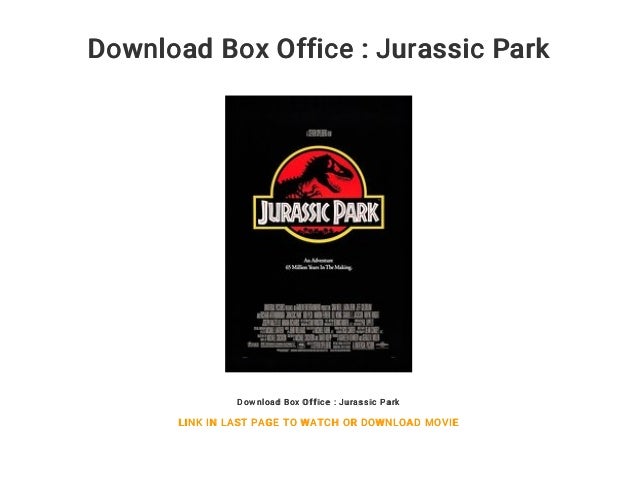
This font resembles the lettering used for the Jurassic Park movie. Jurassic Park font download for Windows or Mac OS This font is available in TrueType or OpenType format. Jurassic Park font By Film Himmel Jens R Ziehn Website wwwfilmhimmelcom 2696 views, 440 downloads Share Share Share Download (zip 257 Kb) Add to favourites Report this font.
Jurassic Park font 298/5 2264 votes, rated based on results identification by Jens R Ziehn (Fonts by Jens R Ziehn wwwfilmhimmelcom) DOWNLOAD FONT See the font with your own custom text SET CUSTOM TEXT WhatFontIs Blog Use The Power Of Fonts To Increase Sales. Jurassic Park font is a fancy, outline font designed by Jens R Ziehn Jurassic Park font is available for free download for noncommercial, personal projects. Download Jurassic Park font at FontsMarketcom, the largest collection of amazing freely available fonts for Windows and Mac.
Font download Select below your desired version of this font Jurassic Park The data will be supplied in a Zip archive This will be a single zip file containing selected font file(s) To start downloading please confirm your request Can't read the code?. Jurassic Park Font Features This can be a fancy, stylish, trend serif typeface that looks like a gucci font gets encouraged by means of a letters printable widespread journal logo Designers workforce working on it took a significant deal with the font paring and contrast matching for the period of the based font family Jurassic the typeface. Nov 12, 19 The Jurassic Park font contains 68 beautifully designed characters ️ Customize your own preview on FFontsnet to make sure it`s the right one for your designs.
This font resembles the lettering used for the Jurassic Park movie. Free download Jurassic Park fonts, free Jurassic Park fonts, BD Jurassic, BD Jurassic Black, BradstoneParker Script Limited Version, Echinos Park Script Toggle navigation fonts100Com Font Styles Alien (112) Arabic (1605) Basic (1147) Cartoon (1756). Click to find the best 5 free fonts in the Jurassic Park style Every font is free to download!.
Jurassic Park Font, Download Jurassic Park ttf truetype or zip Free Free Windows Fonts for Donwload. Jurassic Park is a 1993 American science fiction adventure film directed by Steven Spielberg and produced by Kathleen Kennedy and Gerald R Molen It is the first installment in the Jurassic Park franchise, and is based on the 1990 novel of the same name by Michael Crichton and a screenplay written by Crichton and David Koepp The film is set on the fictional island of Isla Nublar, located off. Jurassic Park by Jens R Ziehn A font based on the title logo from the movie Jurassic Park 3 and Jurassic World CLICK HERE TO DOWNLOAD!.
Jurassic Park Font is presented by Filmfonts This awesome font only is allowed for personal use unless you get a commercial license I recommend you to check out this font for African theme designs!. Download Jurassic Park font at FontsMarketcom, the largest collection of amazing freely available fonts for Windows and Mac. Introducing Jurassic park font the honestly brush font for your outstanding layout, this font so suitable for tshirt layout, brochure, mug format, posters, and so forth Blanketed with the font are lower and upper case alternates.
Download and install the Jurassic Park font for free from FFontsnet ️ This font has been downloaded ,000 times. We have 5 free jurassic park fonts to offer for direct downloading · 1001 Fonts is your favorite site for free fonts since 01. Introducing Jurassic park font the honestly brush font for your outstanding layout, this font so suitable for tshirt layout, brochure, mug format, posters, and so forth Blanketed with the font are lower and upper case alternates.